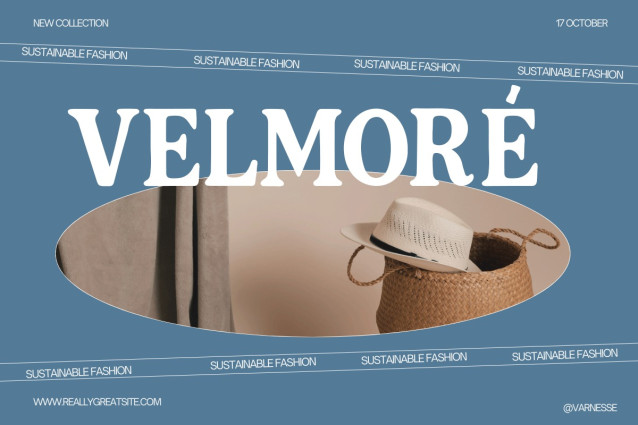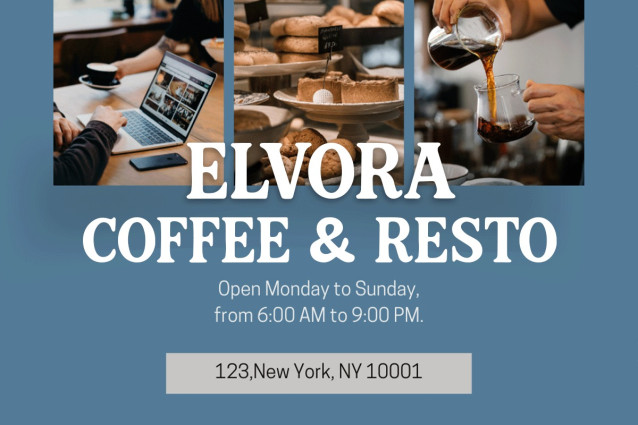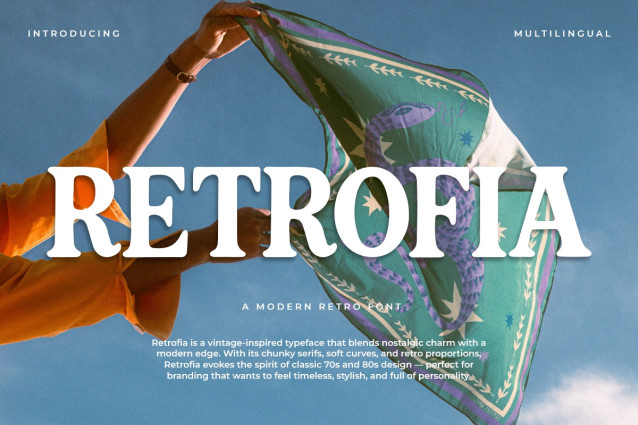
Retrofia Font
Retrofia Font Like the name given in this type of letter, Retrofia A Modern Classy Serif Retro Font has a beautiful nuance of Berlin City. On the other hand, Retrofia A Modern Classy Serif Retro Font is a modern serif font that will help you create charming and contemporary letter designs. Retrofia A Modern Classy Serif Retro Font is a modern style font that applies capital letters in its use. With a thick font type, it is not equipped with an excessive serif for each letter. This font has a unique curved shape that is rarely found in other serif fonts. Retrofia A Modern Classy Serif Retro Font is a font that can be read, seen, and understood from a distance. However, this font is not suitable for writing long sentences or paragraphs, as the contents of books and magazines. Retrofia A Modern Classy Serif Retro Font is a digital font that is suitable for quotations, design titles, blog headers, art excerpts, and typography. This font can also be used as a printed font such as posters, business cards, and font branding. Retrofia A Modern Classy Serif Retro Font was created to give a classic and modern feel to any brand that chose to use this font. Our Serif font collection is compatible to be used as; Fonts fonts, Canva fonts, font fonts, and adobe fonts. They also work as Windows font and Apple font. For your social media needs, you can use and install fonts in our Serif font collection to use as Instagram fonts, Facebook fonts, and Twitter fonts.